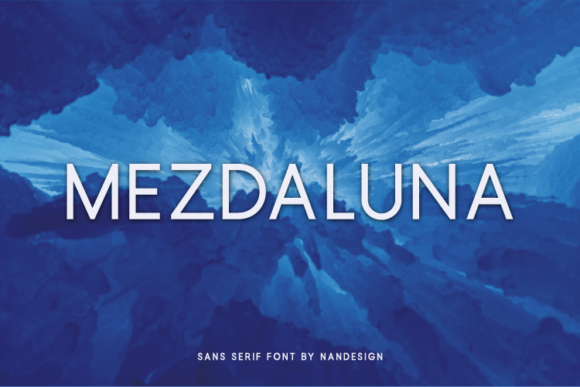
Welcome to the world of Mezdaluna, a sans serif font family designed to empower your mobile app designs with clarity and sophistication.
At first glance, Mezdaluna captivates with its clean and smooth curves, promising an effortless reading experience on any mobile screen. Each character is meticulously crafted to enhance readability, ensuring that your app's content flows seamlessly and effortlessly.
But Mezdaluna is more than just a collection of letters; it's a gateway to unlocking the full potential of your mobile app. Imagine your app's interface adorned with Mezdaluna's graceful lines, guiding users through an intuitive and engaging experience.
With Mezdaluna, you're not just choosing a font; you're choosing a partner in creating a mobile app that stands out in the crowded marketplace. Its versatile nature empowers you to express your app's unique personality, whether it's sleek and modern or playful and inviting.
Join the growing number of app designers who have embraced Mezdaluna's charm. Let your app's message resonate with users through the clarity and sophistication that only Mezdaluna can provide.